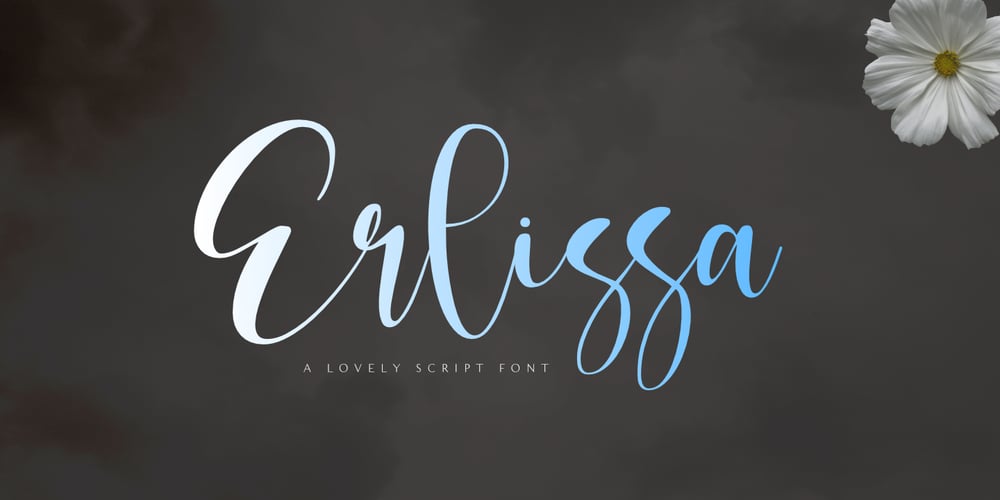
Erlissa Font Family was designed by Aldy Sidik and published by Epiclinez. Erlissa contains 1 styles and family package options. Erlissa is a sweet and elegant handwritten script font. This original look will appeal to a wide range of crafty ideas, from letterheads and titles to stationery.So what’s included : Basic Latin A-Z & a-z Numbers, symbols, and punctuations Ligatures Accented Characters : ÀÁÂÃÄÅÆÇÈÉÊËÌÍÎÏÑÒÓÔÕÖØŒŠÙÚÛÜŸÝŽàáâãäåæçèéêëìíîïñòóôõöøœšùúûüýÿžß Thank you